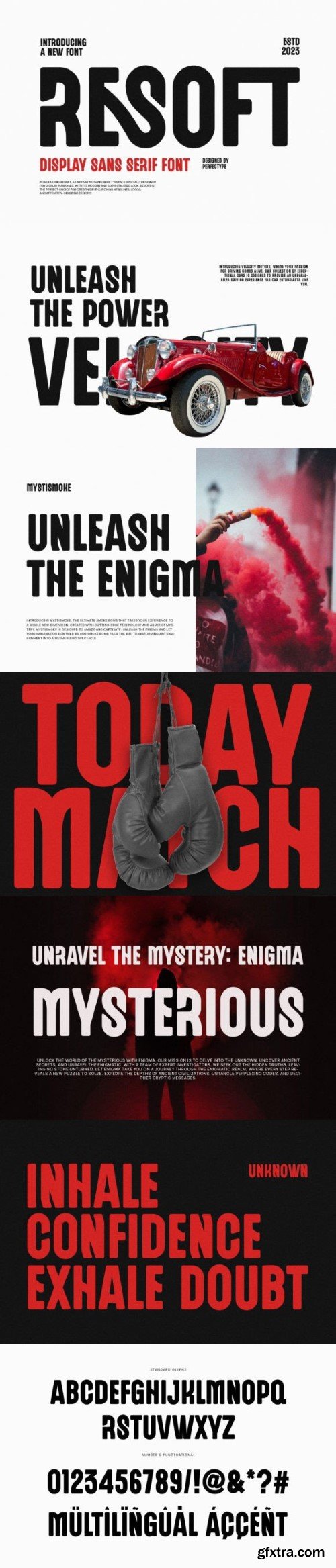
柔体字体
Inspired by the famous minimalist logo perfect for designing templates, brochures, videos, advertising branding, logos, invitations, layout designs, elegant crafting, beauty design, and others.